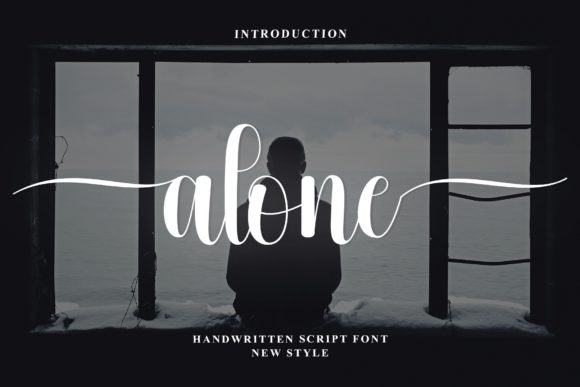
The Elusive Perfect Font: My Journey with Alone
I still remember the countless hours I spent scrolling through font libraries, searching for the perfect typeface for a luxury wedding stationery project. My client wanted something elegant, sophisticated, and unique. I had a vision of a fluid, handwritten script that would capture the essence of their special day. That’s when I stumbled upon Alone, an exquisite font that exceeded my expectations. In this article, I’ll share my experience with Alone, its features, and how to make the most of this beautiful font.
A First Impression: What I Love About Alone
Alone is indeed a gem ✨. Here are some aspects that make it stand out:
- ✅ Elegant and fluid handwritten script
- ✅ Perfect for luxury wedding stationery, intimate event branding, and high-end editorial signatures
- ✅ Sophisticated and modern feel
- ✅ Works well for lifestyle photography overlays
The Not-So-Perfect: Small Quirks and Limitations
No font is perfect, and Alone is no exception 🤔. Here are a few things to keep in mind:
- ⚠️ Limited character set: Some users have reported that the font lacks certain characters or diacritics.
- ⚠️ May require manual kerning: As with any script font, you might need to adjust the kerning to achieve optimal results.
The Story Behind Alone: Designer Inspiration
While I couldn’t find any information on the exact designer behind Alone, it’s clear that the font was crafted with love and attention to detail. The fluid strokes and elegant lines evoke a sense of sophistication and luxury. Whether the designer was inspired by traditional calligraphy or modern digital art, Alone is undoubtedly a masterpiece.
| Font Name | Alone Font |
| Author | Black line |
| Is Alone suitable for body text? | No, Alone is best used for headlines, titles, and short paragraphs. Its elegant and fluid nature makes it perfect for display text. |
| Does Alone support OpenType features? | Yes, Alone supports OpenType features, including glyphs and stylistic alternates. Experiment with these features to add personality to your text. |
In conclusion, Alone is a stunning handwritten script font perfect for designers, crafters, and creative hobbyists looking to add a touch of elegance and sophistication to their projects. With its fluid strokes, modern feel, and support for OpenType features, Alone is an excellent choice for luxury wedding stationery, intimate event branding, high-end editorial signatures, and lifestyle photography overlays.